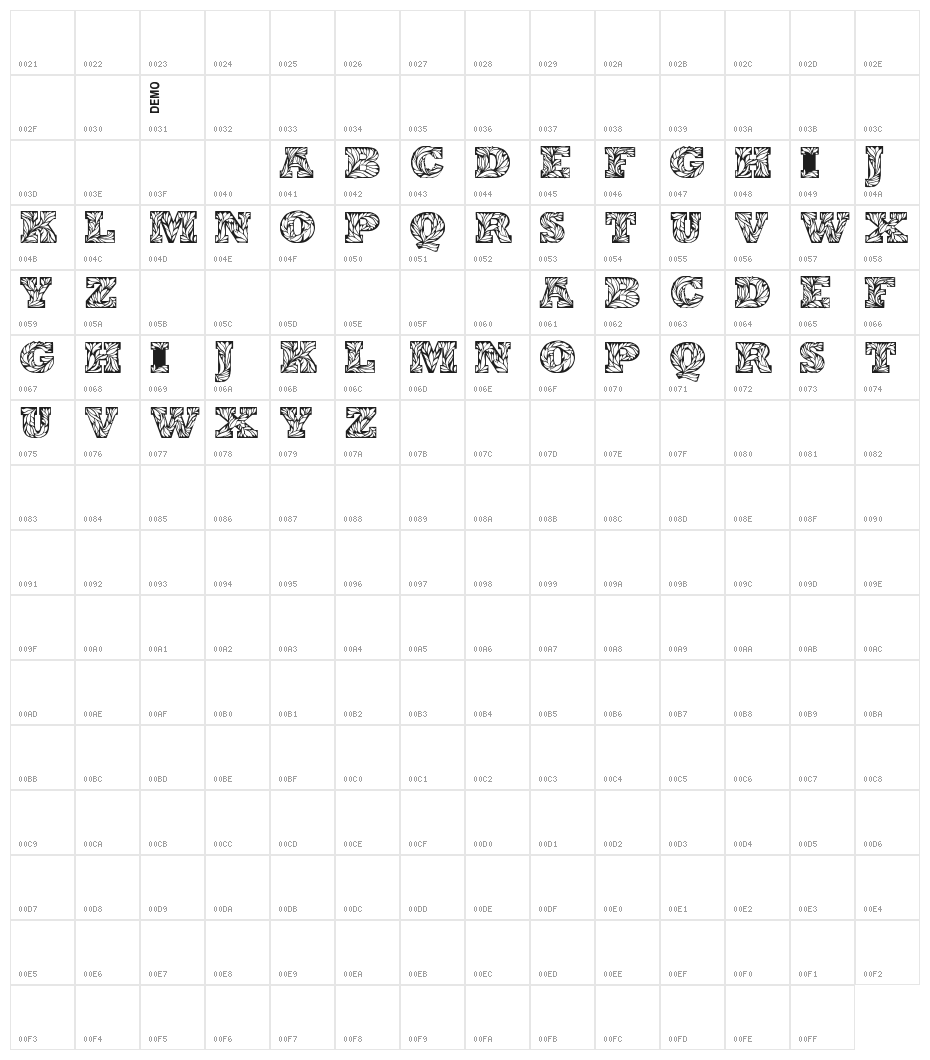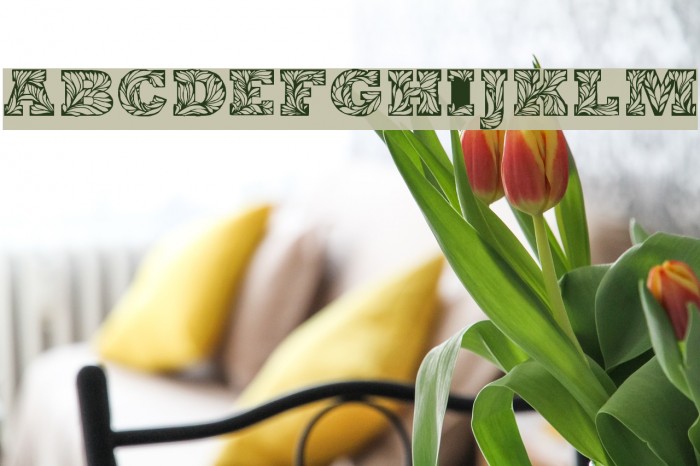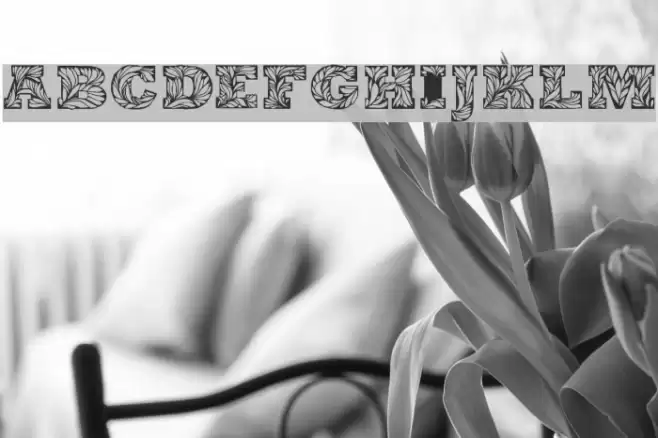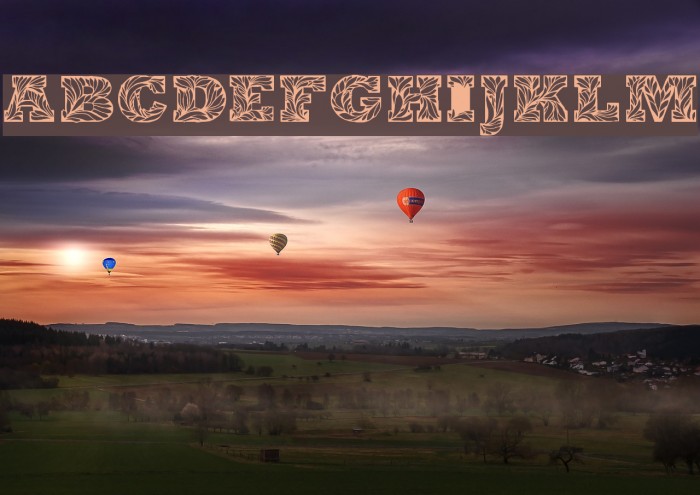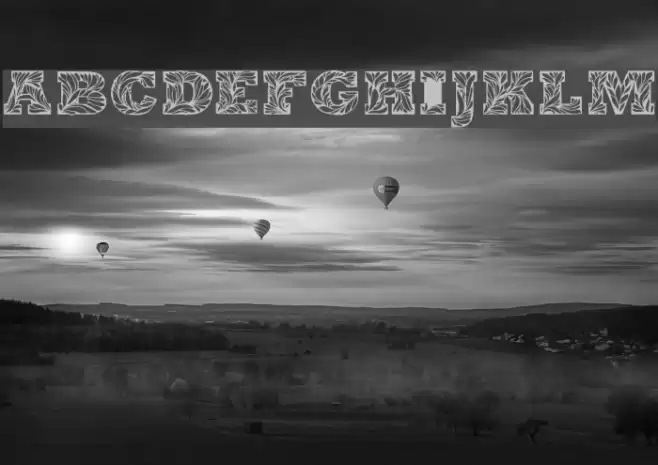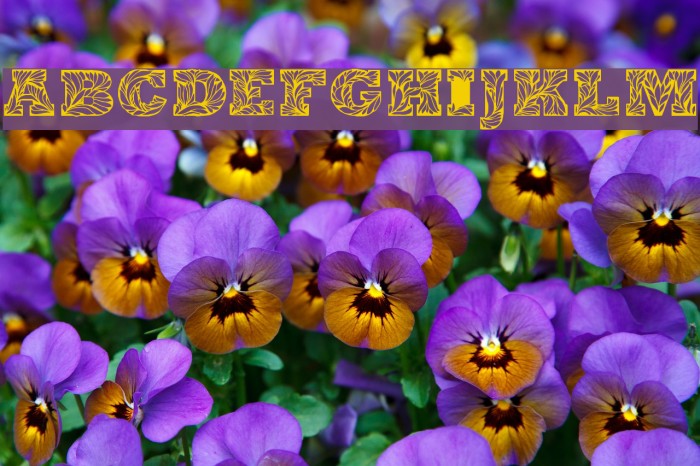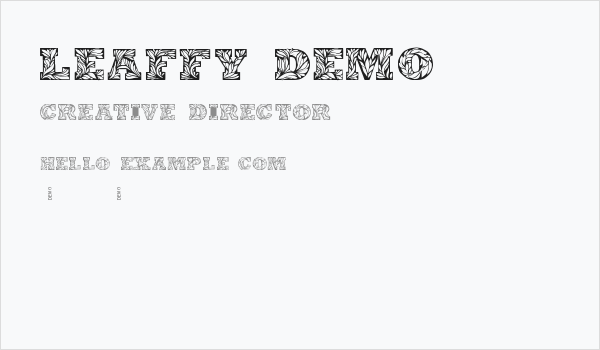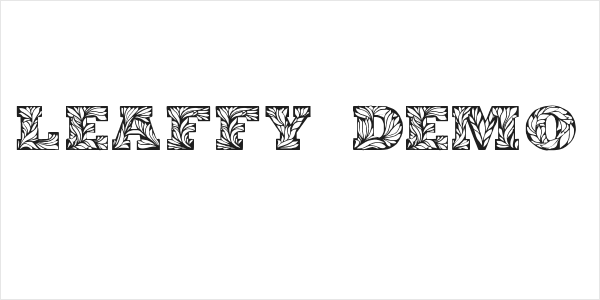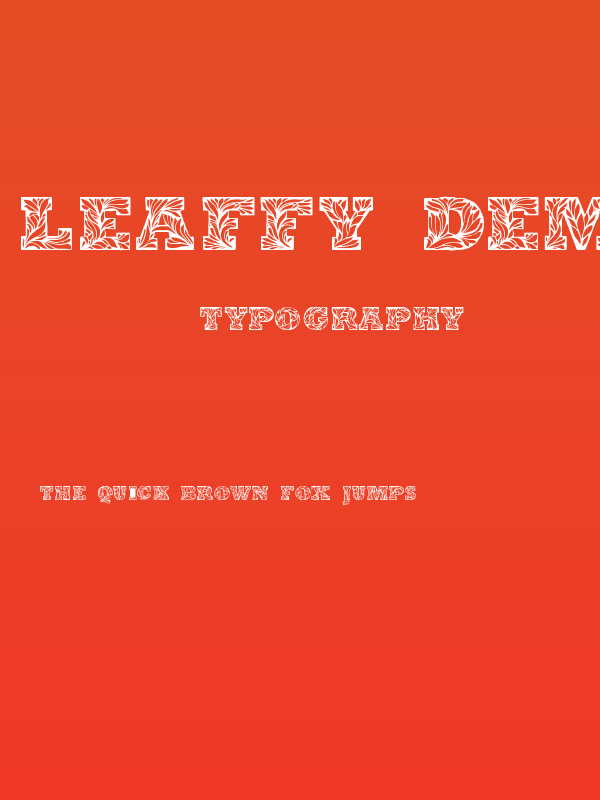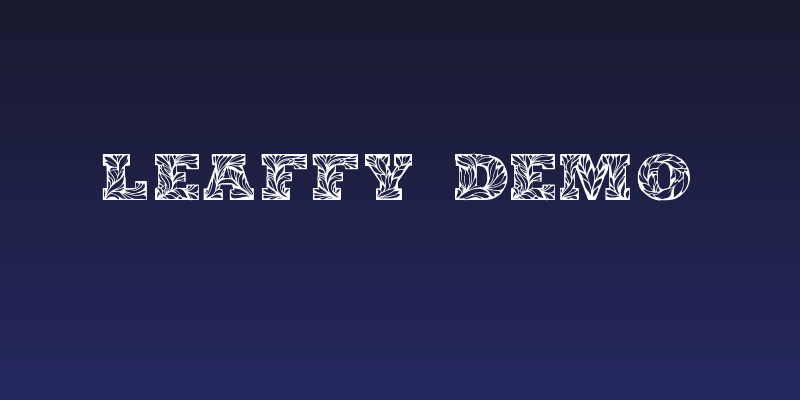
Leaffy Demo Font
Leaffy Demo Description
This font features a decorative style with intricate leaf patterns embedded within each character. The uppercase letters are bold and eye-catching, making them ideal for designs that require a natural or organic theme. The leaf motifs add a unique texture and depth, creating a visually appealing effect that stands out. The font maintains a consistent structure across all characters, ensuring readability while offering an artistic flair. Its detailed design is perfect for projects that aim to convey a sense of nature, growth, or elegance.
| Proposed Projects | Ideal for eco-friendly branding, nature-themed posters, wedding invitations, and organic product packaging. |